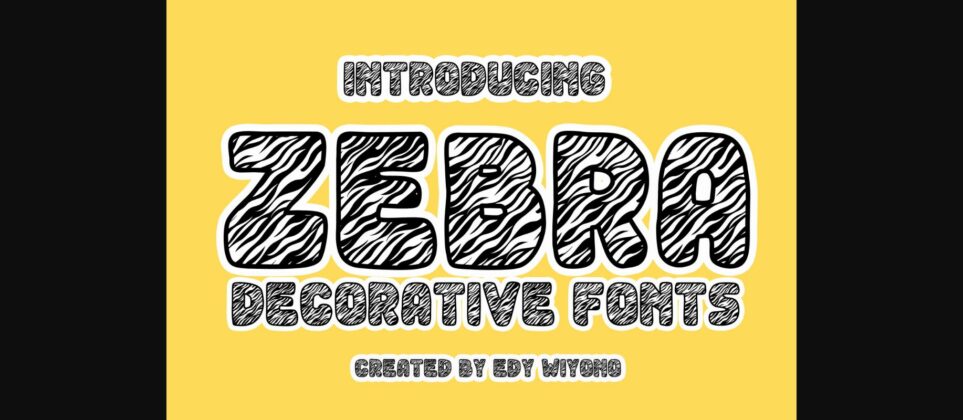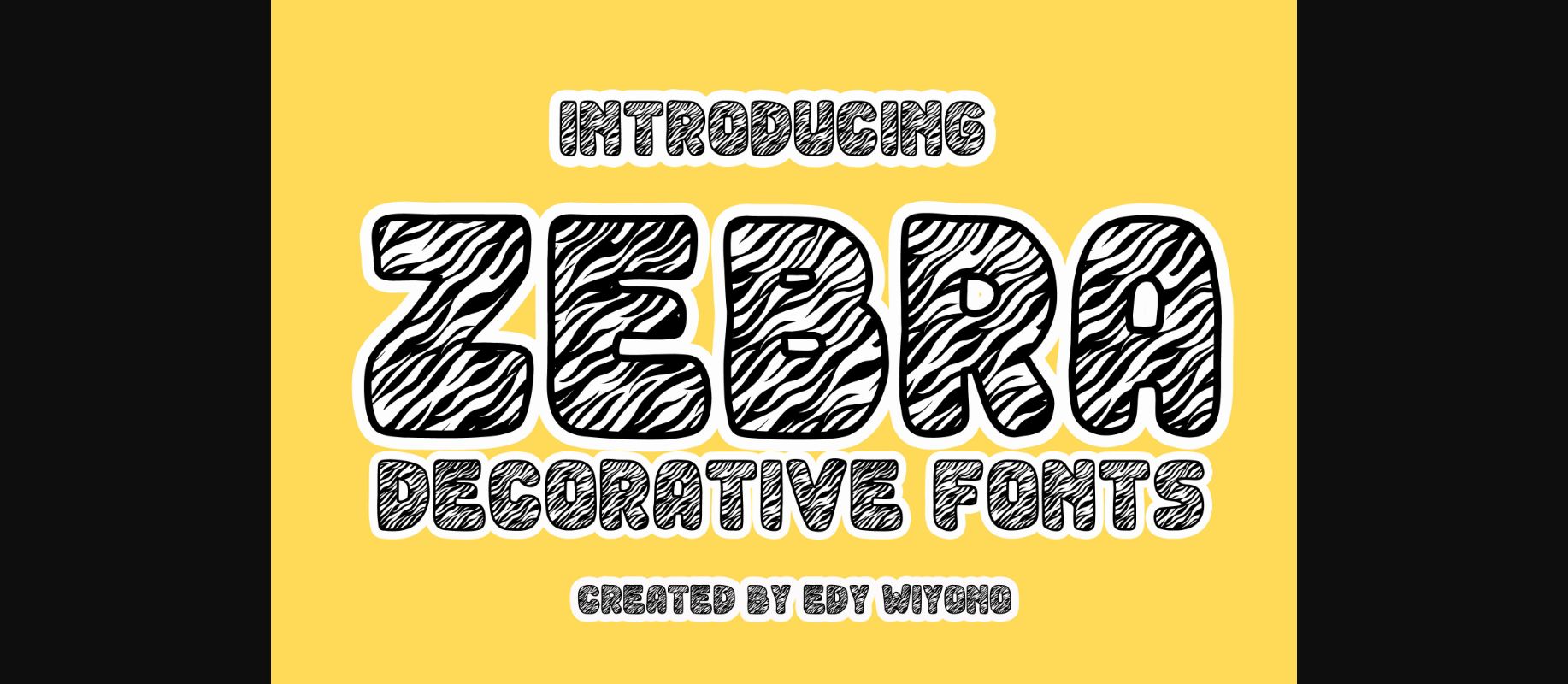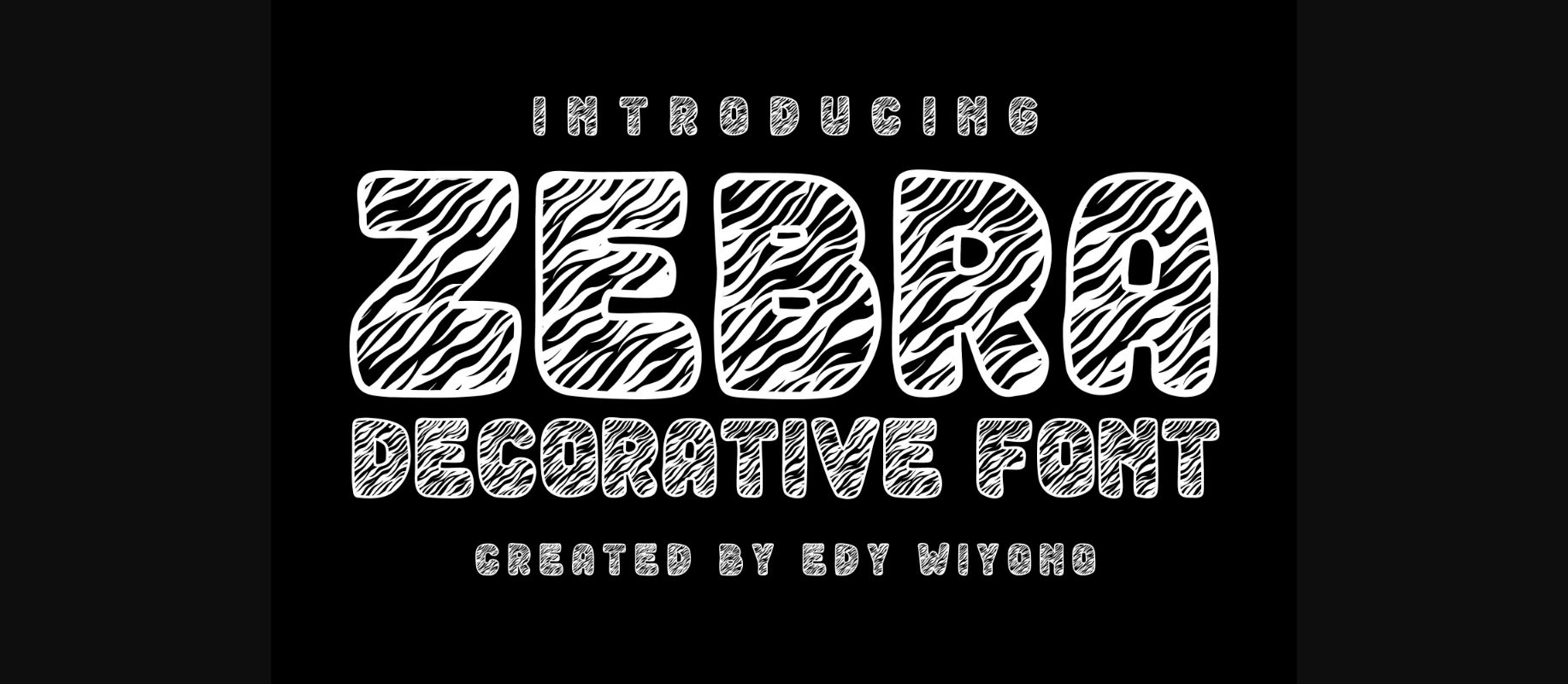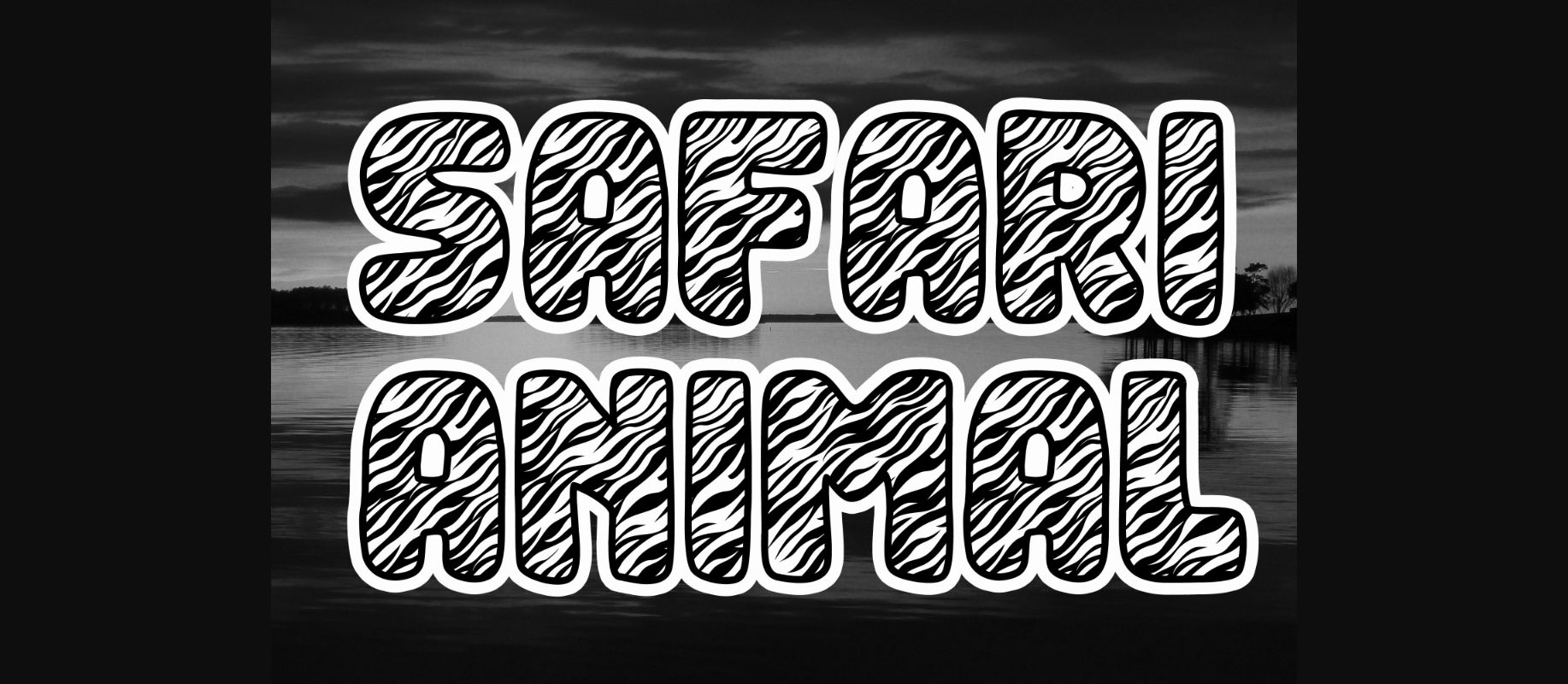
Zebra Font
About Zebra Font
Zebra is a decorative font with a zebra skin texture. This font is perfect for nature-themed designs, and for children’s themes. No matter the topic, this font will be an incredible asset to your fonts’ library, as it has the potential to elevate any creation.